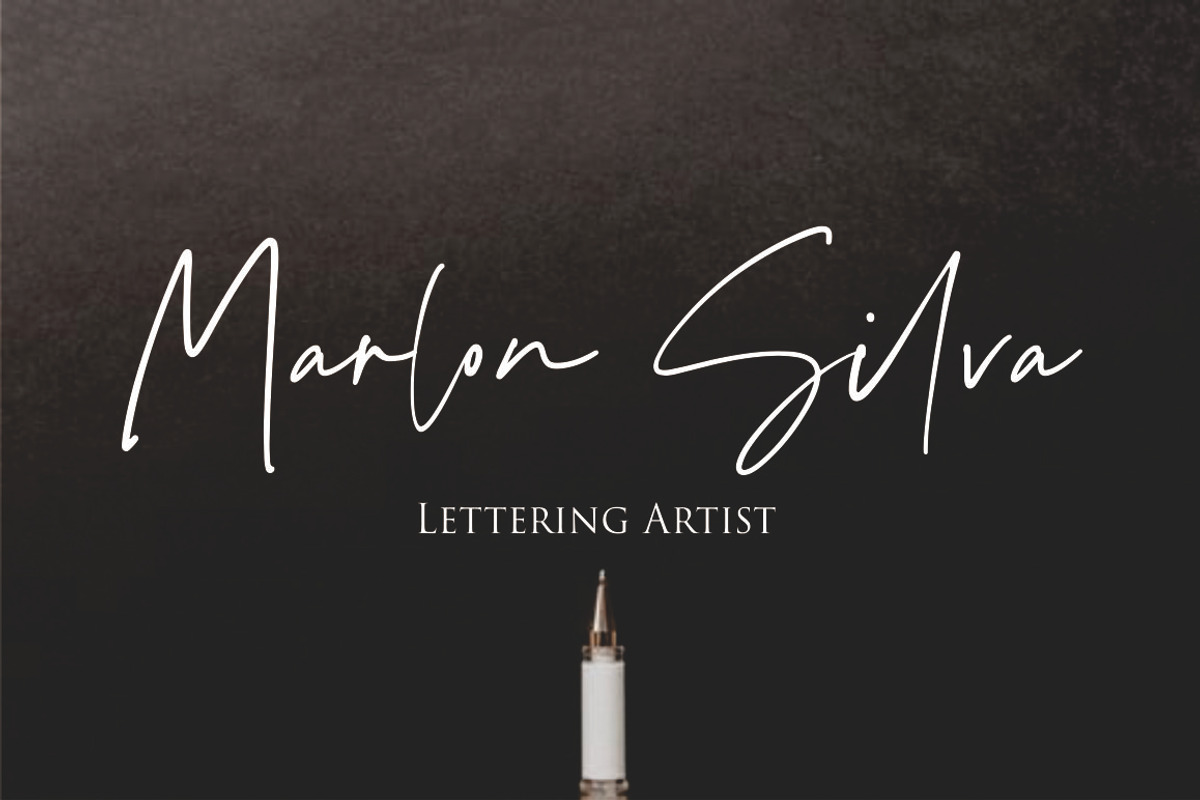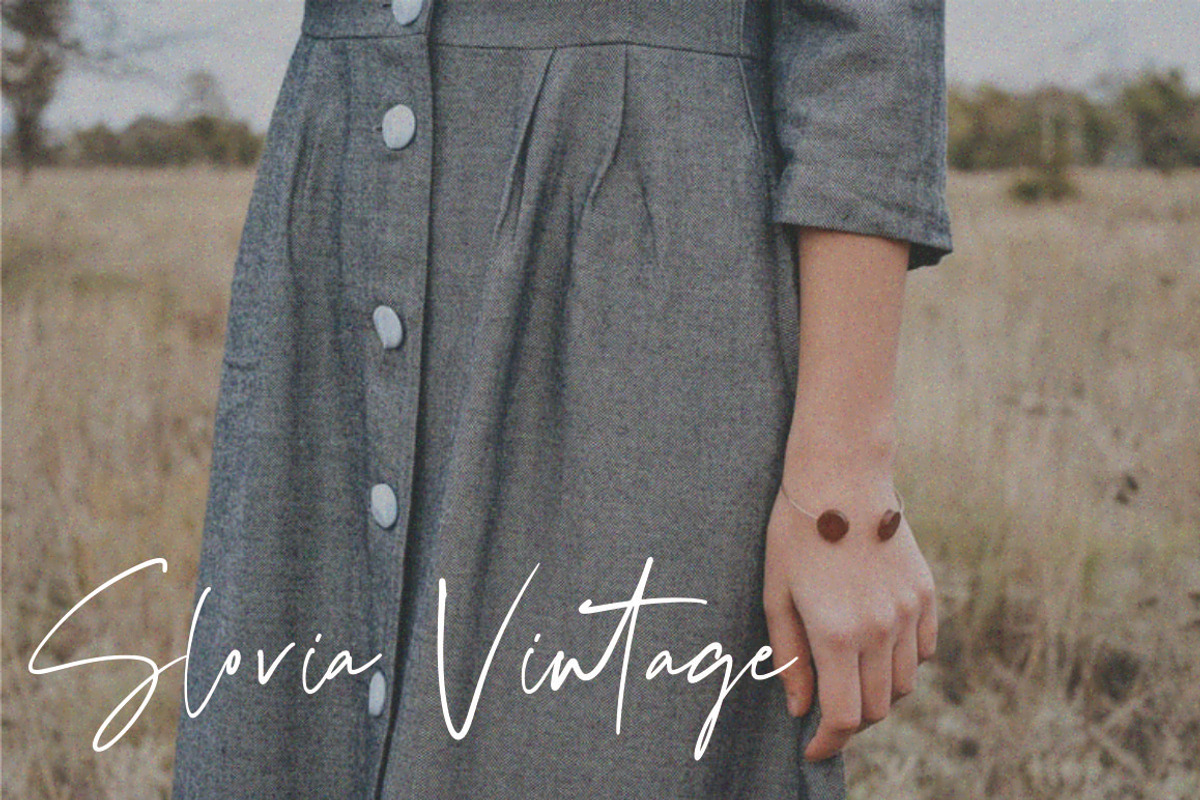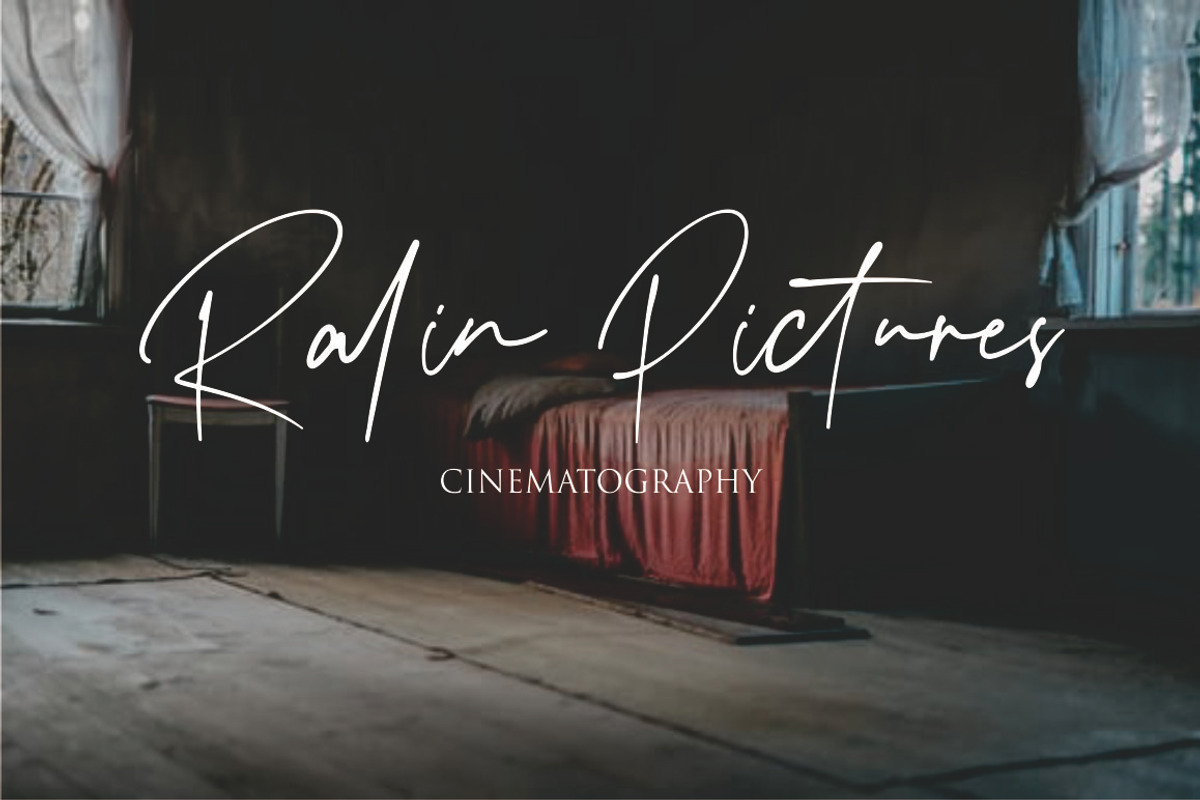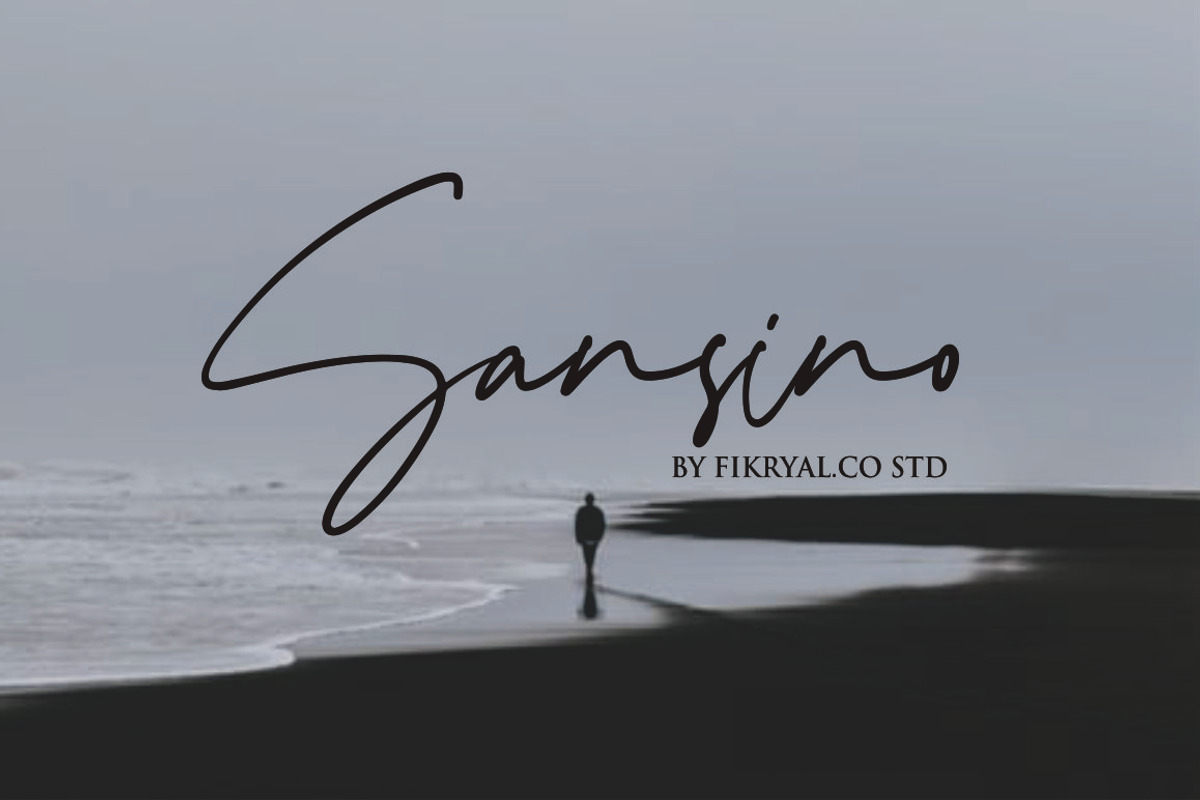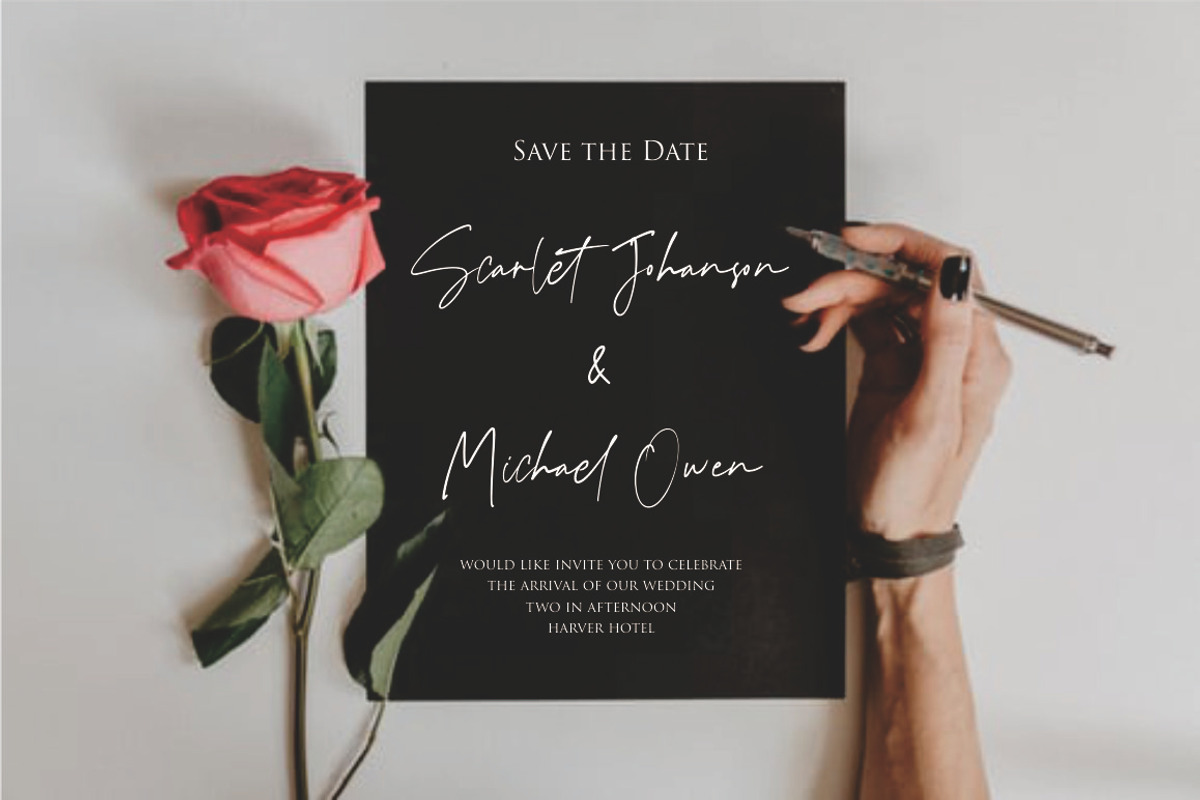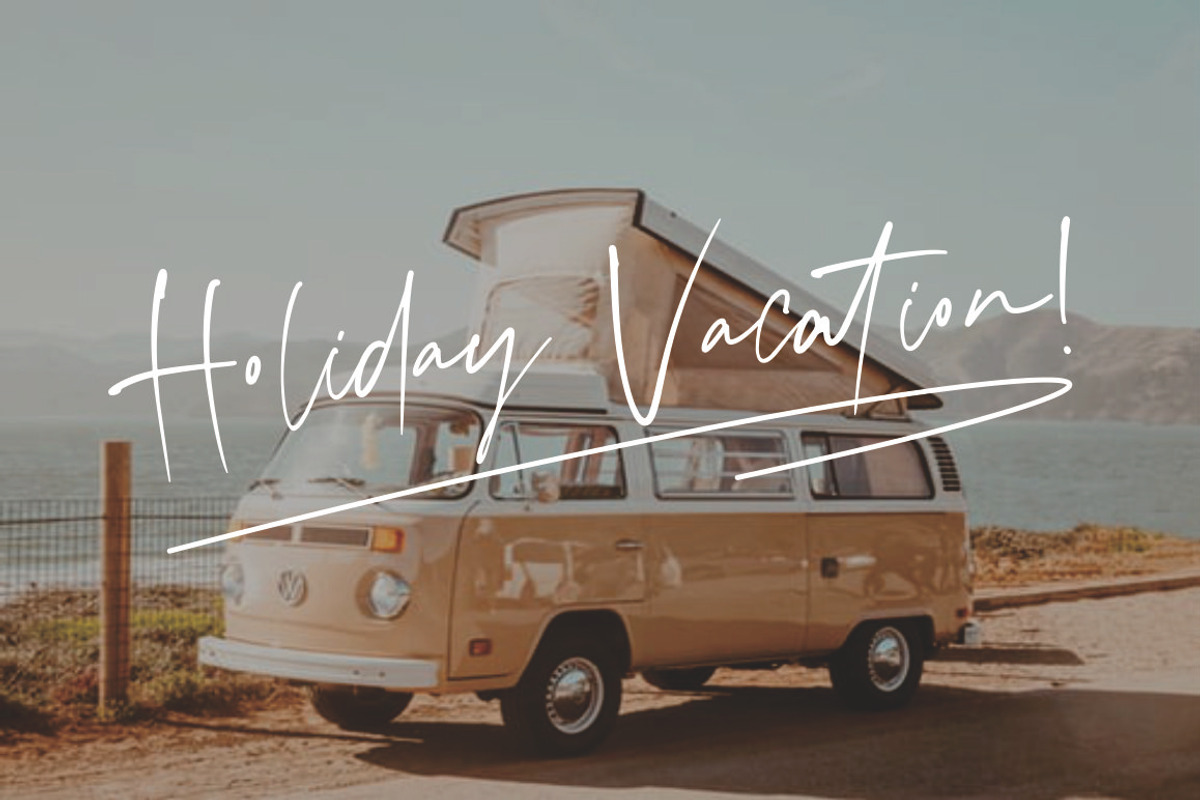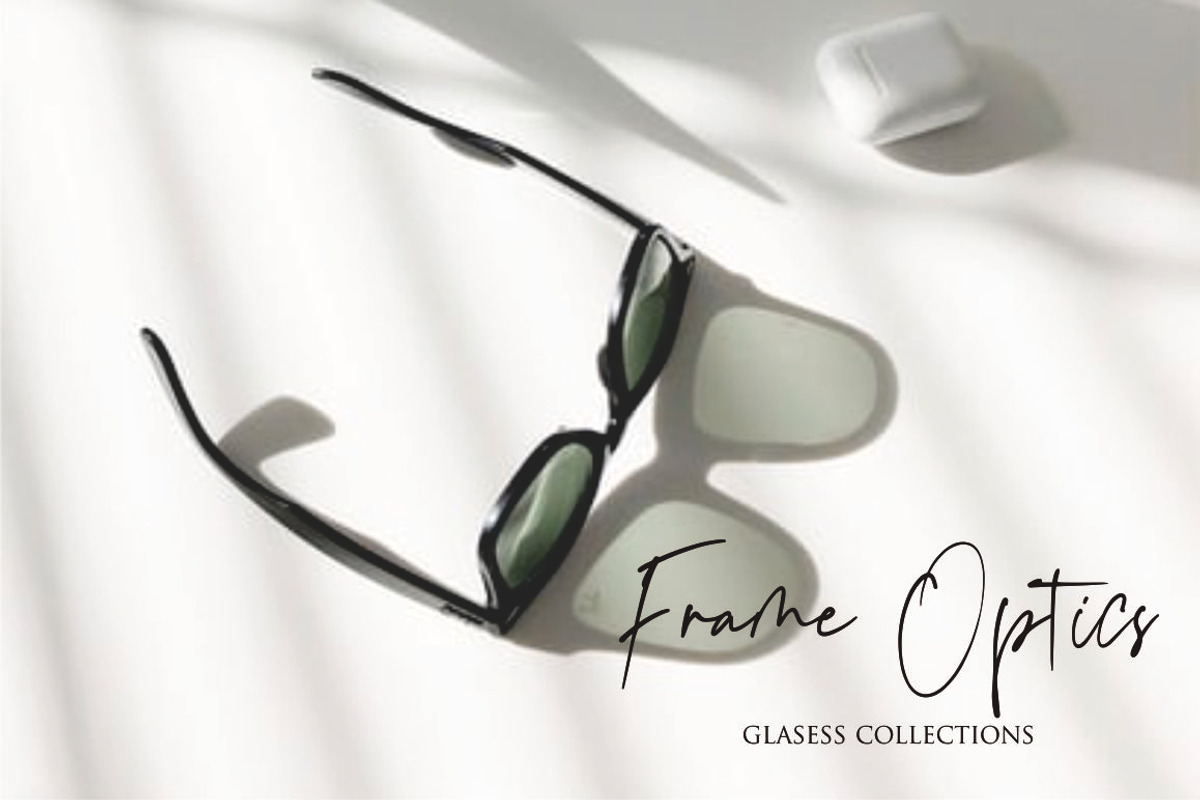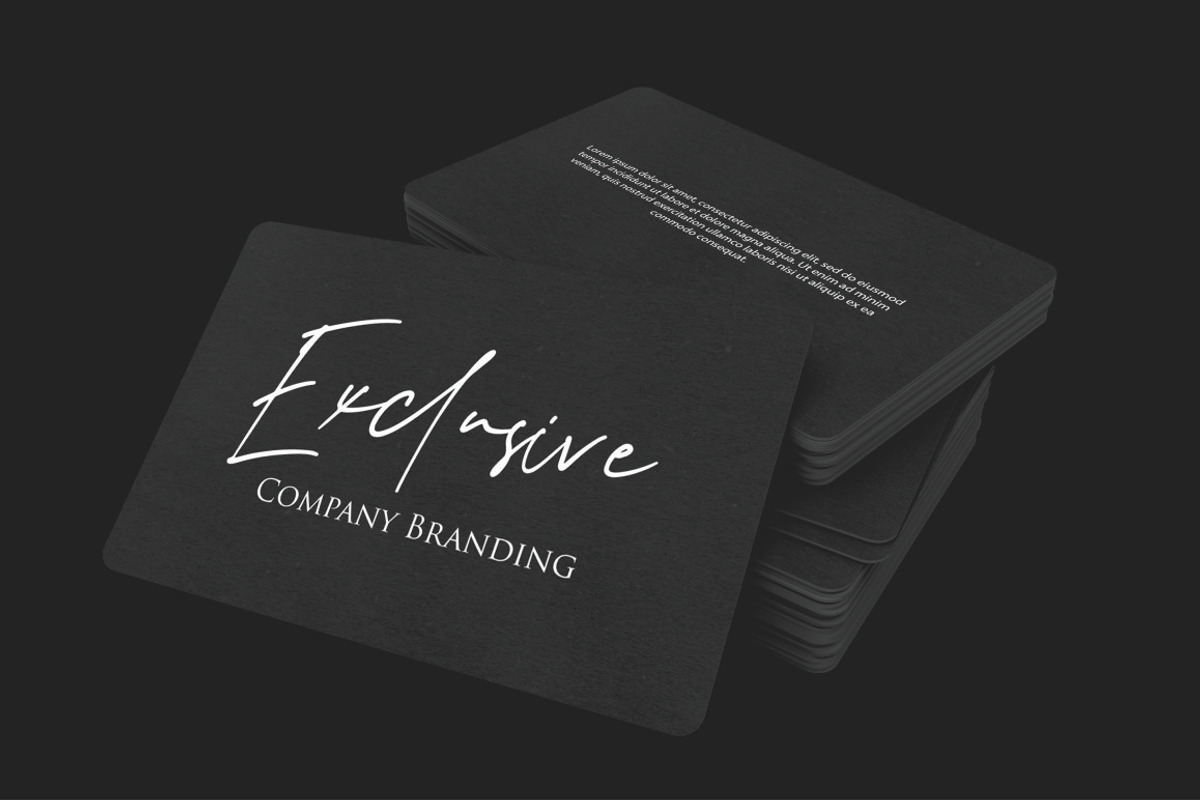
Sansino - Handwritten Font
Sansino is a natural handwritten font, this font Is perfect for logos, invitations, stationery, wedding designs, social media posts, advertisements, product packaging, product designs, label, photography, watermark, special events, or anything.
Sansino comes with a full set of uppercase and lowercase letters,ligatures, multilingual symbols, numerals, punctuation.